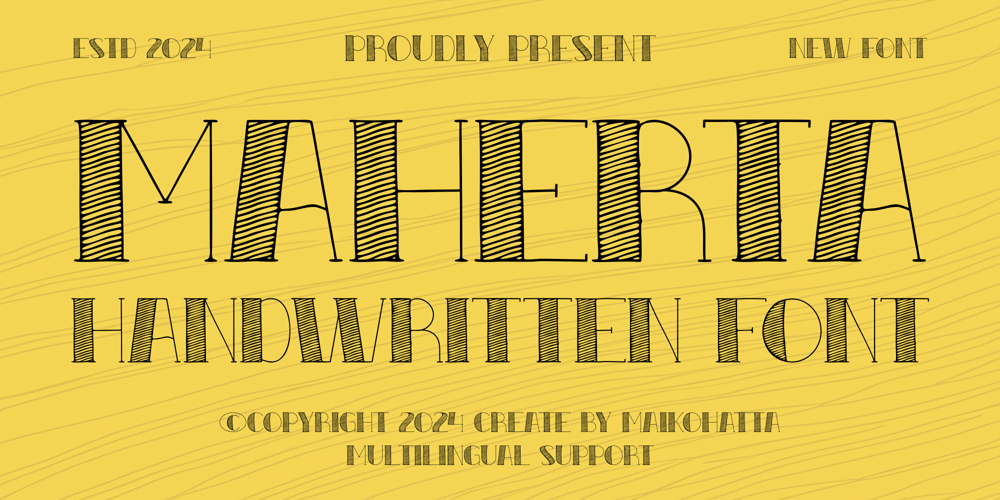
Maherta Font Family was designed by Gilang Ternadho and published by Maikohatta. Maherta contains 1 styles and family package options. Introducing our new product Maherta – Handwritten FontMaherta suitable for greeting cards, invitations, posters, baby clothing, books cover, quotes, logos, presentations, headline, etc.outstanding in a wide range of contexts.